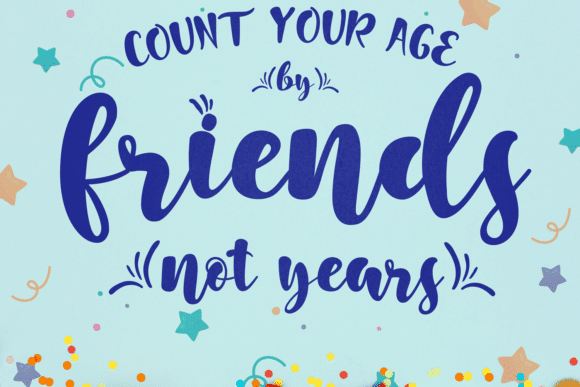
Good Things Modern Script Font
Good Things Font is the font style handmade dancing and then live trace to have unique, the writing style is very natural. This is a very special script type, it is bold style. If you are looking for such typeface then it is perfect for your work. It maintains its classy calligraphic influences while feeling contemporary and fresh. Fall in love with it and bring your projects to the highest levels!